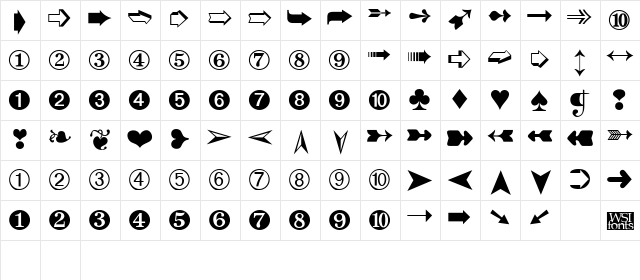
Dingbats Two Regular
Design Context for Dingbats Two
Dingbats Two is a composed and adaptable typeface that performs quietly and consistently across a wide range of design contexts.